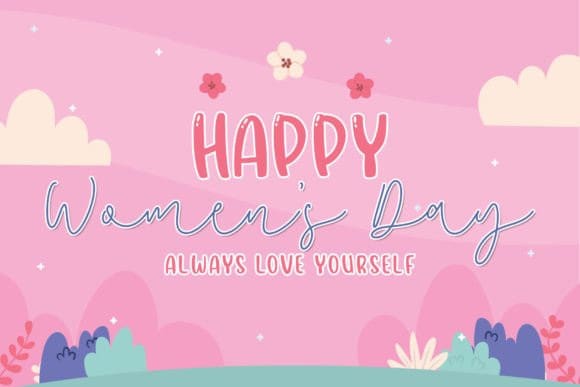
Snowy Dream Font
Snowy Dream Font is a versatile and flexible font trio that can be used for various purposes and occasions. Whether you want to create a festive, winter-themed design or a cheerful, spring-inspired design, Snowy Dream can help you achieve your goals. With Snowy Dream, you can unleash your creativity and make your designs stand out from the crowd.
If you are looking for a lovely font trio that can add charm and beauty to your designs, look no further than SnowyDream. This font is a must-have for any designer who loves creating cute and fun designs for kids and adults alike. SnowyDream will make your designs look like a dream come true.